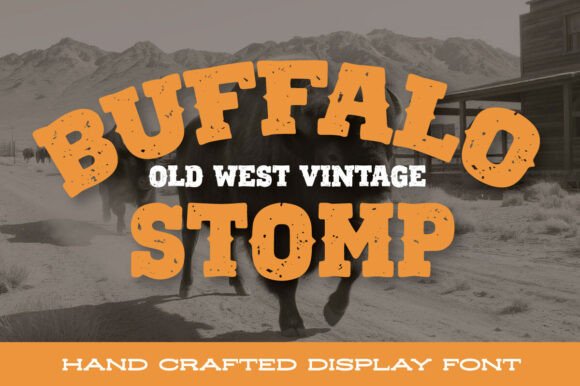
Buffalo Stomp Font for Rugged Editorial Design
Buffalo Stomp is a bold, rugged Western-style font with a heavy, distressed appearance that serves as an exceptional choice for publishers and content creators seeking authentic visual impact. As one of the most distinctive Display Fonts available for editorial projects, this typeface captures the raw energy of the frontier while maintaining enough structural integrity to function effectively in modern digital layouts. For bloggers, magazine designers, and ebook authors, selecting the right typography is about more than aesthetics; it is about establishing an immediate emotional connection with the reader before they process a single word of body copy. Buffalo Stomp delivers this connection through its unique texture and commanding presence, making it a vital asset for brands that want to convey strength, heritage, and unpolished authenticity.
Buffalo Stomp for Magazine Covers and Digital Publication Headers
When designing magazine covers or digital publication headers, Buffalo Stomp provides the necessary visual weight to stop scrollers and capture attention in crowded feeds. This specific style of Display typography excels in large-format applications where the intricate details of the distressed edges can be fully appreciated without compromising legibility. The letters have rough edges and uneven textures that mimic the wear of aged wood signage or weathered leather, creating an instant sense of history and tactile reality. For editorial designers working on lifestyle magazines, outdoor adventure blogs, or heritage-focused newsletters, this font acts as a powerful anchor for the cover hierarchy. It allows the main title to dominate the layout while leaving ample negative space for supporting imagery, ensuring that the publication’s identity remains consistent across both print and mobile screen formats.
Buffalo Stomp for Ebook Titles and Lead Magnet Graphics
Authors and course creators will find that Buffalo Stomp transforms standard ebook titles and lead magnet graphics into premium, high-value assets. In the competitive market of digital downloads and printable guides, the perceived value of a product often hinges on professional, genre-appropriate typography. This font is particularly effective for niches such as wilderness survival guides, historical fiction, rustic cooking recipes, and masculine self-improvement workbooks. The subtle cracks and heavy stroke width suggest durability and substance, signaling to potential readers that the content inside is grounded and practical rather than fleeting or overly polished. When used on PDF exports or social media promotional graphics, the textured nature of Buffalo Stomp ensures that the title remains readable even when scaled down for thumbnail views, provided it is paired with sufficient contrast against the background.
Buffalo Stomp for Social Media Quote Cards and Newsletter Branding
Content marketers and newsletter writers can leverage Buffalo Stomp to create memorable quote cards and branded social media assets that stand out from minimalist trends. While many Display Fonts prioritize elegance or playfulness, this typeface offers a gritty alternative that resonates with audiences interested in authenticity, craftsmanship, and outdoor living. When pulling a key insight from a blog post or highlighting a testimonial in a creator newsletter, using Buffalo Stomp for the attribution or the headline adds a layer of editorial sophistication. However, because the letters have rough edges and uneven textures, it is crucial to limit its use to short phrases or single sentences. Attempting to use this font for long-form captions or dense paragraphs will degrade readability and frustrate mobile users. Instead, treat it as a graphical element that punctuates your content strategy, guiding the reader’s eye toward the most important takeaways.
Buffalo Stomp for Printable Planners and Worksheet Headings
Designers creating printable planners, journals, and educational worksheets can utilize Buffalo Stomp to establish clear section breaks and engaging chapter openers. In functional design, visual hierarchy is paramount; users need to instantly recognize where one section ends and another begins. The heavy, distressed appearance of this font makes it ideal for labeling months in a calendar, titling workbook modules, or marking checklist categories in a rustic-themed planner. Unlike clean sans serif fonts that can sometimes feel sterile in personal development materials, Buffalo Stomp injects personality and warmth into utilitarian documents. For commercial products sold on platforms like Etsy or Gumroad, this typographic choice helps differentiate your templates from generic competitors by reinforcing a cohesive brand identity that feels handcrafted and intentional.
Font Pairing Strategies Using Buffalo Stomp and Clean Serifs
Successful editorial design requires balancing the intense character of Buffalo Stomp with highly legible companion fonts for body text and metadata. Because this typeface is so visually active, it demands a partner that provides stability and quiet contrast. A classic serif font like Merriweather, Georgia, or Playfair Display works exceptionally well for article body copy, as the traditional letterforms complement the Western aesthetic without competing for attention. Alternatively, a neutral geometric sans serif can be used for navigation menus, footnotes, and image captions to maintain a modern, accessible feel. Avoid pairing Buffalo Stomp with other distressed or handwritten fonts, as this creates visual noise and reduces overall comprehension. The goal is to let the display font serve as the voice of the brand while the secondary font facilitates the reading experience, ensuring that your content remains accessible to all audiences, including those using screen readers or viewing on low-resolution devices.